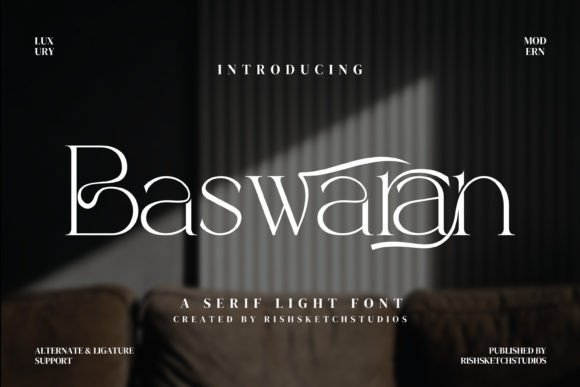
Prepare to be captivated by the allure of Baswaran, a modern and alluring serif font that will elevate your designs to new heights of sophistication. With its delicately crafted serifs and sleek letterforms, this font embodies luxury and refinement.
Step into a world of opulence as Baswaran adorns your creations, whether they be high-end brands, premium advertisements, or any design that yearns for a touch of grandeur. Its versatility knows no bounds, making it the perfect choice for a vast array of creative endeavors.
But what truly sets Baswaran apart is its PUA encoding, granting you effortless access to a treasure trove of glyphs and swashes. Unleash your creativity and let your imagination soar as you incorporate captivating flourishes into your designs.
With Baswaran, ordinary text transforms into an extraordinary visual masterpiece, evoking emotions and leaving an unforgettable impression. Its timeless elegance will captivate your audience, drawing them into your designs and leaving them yearning for more.
Don't settle for mundane fonts. Embrace the allure of Baswaran and elevate your designs to the realm of sophistication and opulence. Let its refined serifs and graceful letterforms become the cornerstone of your creative vision, leaving an enduring legacy in the hearts and minds of your audience.